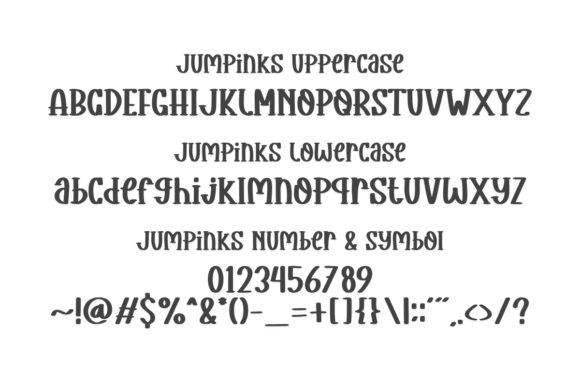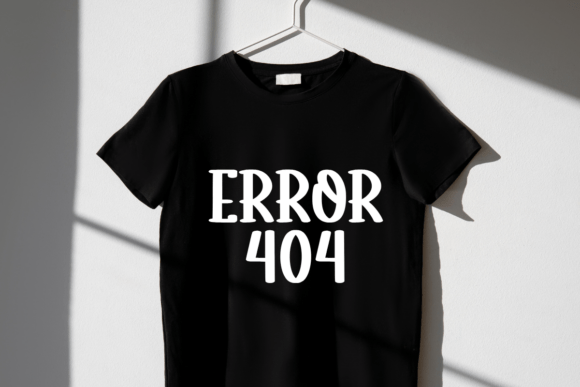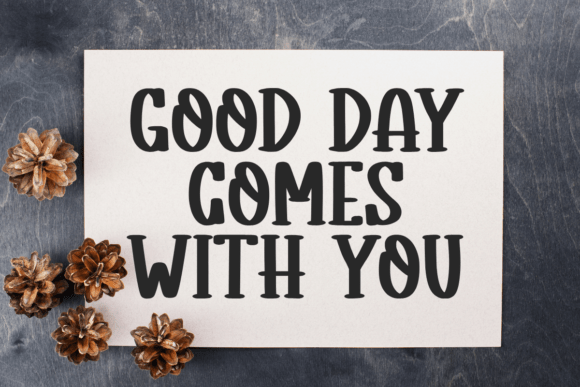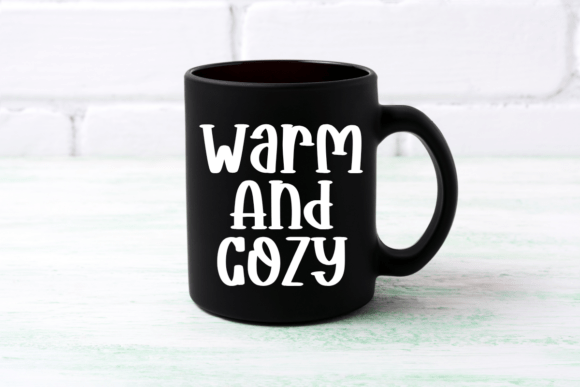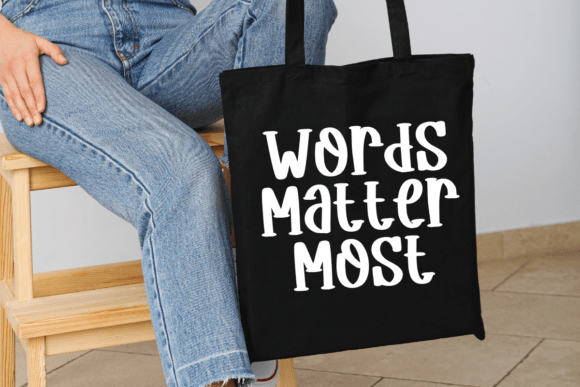
Introduction to Jumpinks Font
Jumpinks is a playful display font.
This font is perfect for cricut projects, logos, shirts, svg files, planners, stickers, quotes, social media and more .